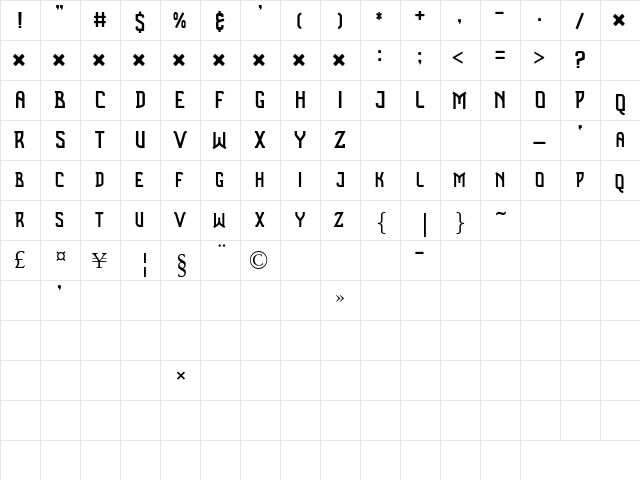
Benza Regular
Design Context for Benza Typeface
Benza takes a measured approach to typography — its balanced proportions and neutral character make it a reliable workhorse for both digital and print work.
Pro Tip: Use Benza in both headline and body roles to test its range before committing to a single application.